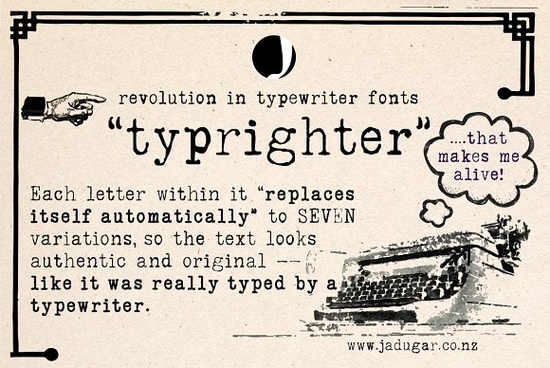
Designers, crafters, and small business owners often look for fonts that add character without requiring extra effort. Typrighter Font is one such option that brings a vintage feel to modern projects. This typewriter-style font uses contextual substitutions to automatically replace each letter with up to seven different variations. The result is a design that feels handcrafted and unique, perfect for anything from logos to greeting cards.
If you're working on a project that needs a retro or handwritten look, Typrighter can help. It’s especially useful for print-on-demand sellers who want to offer distinctive designs without the hassle of manual adjustments. The font is part of the broader category of serif fonts, which are known for their readability and classic appeal. Other popular options in this category include Munnes Font, Savage Roses, and Whimora, each offering its own style and personality.
The key feature of Typrighter is its ability to mimic the imperfections of a real typewriter. Instead of using the same letter every time, it randomly selects from multiple versions, giving your text a more authentic feel. This means you don’t have to worry about repeating characters or making your design look too uniform. Whether you’re creating a poster, a book cover, or a social media graphic, this font adds a layer of visual interest that stands out.
How Does Typrighter Work?
Typically, when you use a standard font, each letter appears the same way every time. With Typrighter, however, the font engine checks the context of each character and chooses a variation that fits best. This process is automatic, so you don’t need to do anything extra. It’s like having a typewriter that never repeats the same letter in the same way.
This feature is especially helpful for designers who want to avoid a robotic or artificial look. By using different forms of the same letter, Typrighter creates a more dynamic and engaging visual experience. It’s ideal for projects that require a personal touch, such as wedding invitations, handmade crafts, or custom t-shirt designs.
Why Choose a Serif Font?
Serif fonts are widely used because they enhance readability, especially in long blocks of text. They also bring a sense of tradition and elegance to any design. Typrighter fits well within this category, combining the charm of a typewriter with the structure of a serif font. If you're looking for similar options, you might explore other serif fonts like Munnes Font, Savage Roses, or Whimora.
For those interested in more typewriter-style fonts, Typrighter is a great starting point. Its unique approach to letter substitution makes it stand out from other fonts in the same category. Whether you're designing for a client or working on a personal project, this font offers both functionality and style.
Best Practices for Using Typrighter
- Use it for headlines and short phrases to highlight the font's unique characteristics.
- Pair it with a simpler sans-serif font for contrast and better readability in longer texts.
- Test it in different sizes to see how the variations affect the overall look.
When using Typrighter, keep in mind that it works best in contexts where a handwritten or vintage feel is desired. It may not be the best choice for body text in digital documents, but it shines in creative applications where visual interest is important.
If you're looking for a font that adds personality to your work without requiring complex setup, Typrighter is worth trying. Its automatic variations ensure that your designs remain fresh and original, while its serif structure keeps them professional and readable. For more options in this space, consider exploring other fonts in the same category.
Before finalizing your design, make sure to test Typrighter in different formats and sizes. This will help you understand how the font behaves in real-world scenarios. Whether you're a designer, a crafter, or a small business owner, this font offers a simple yet effective way to add character to your projects.